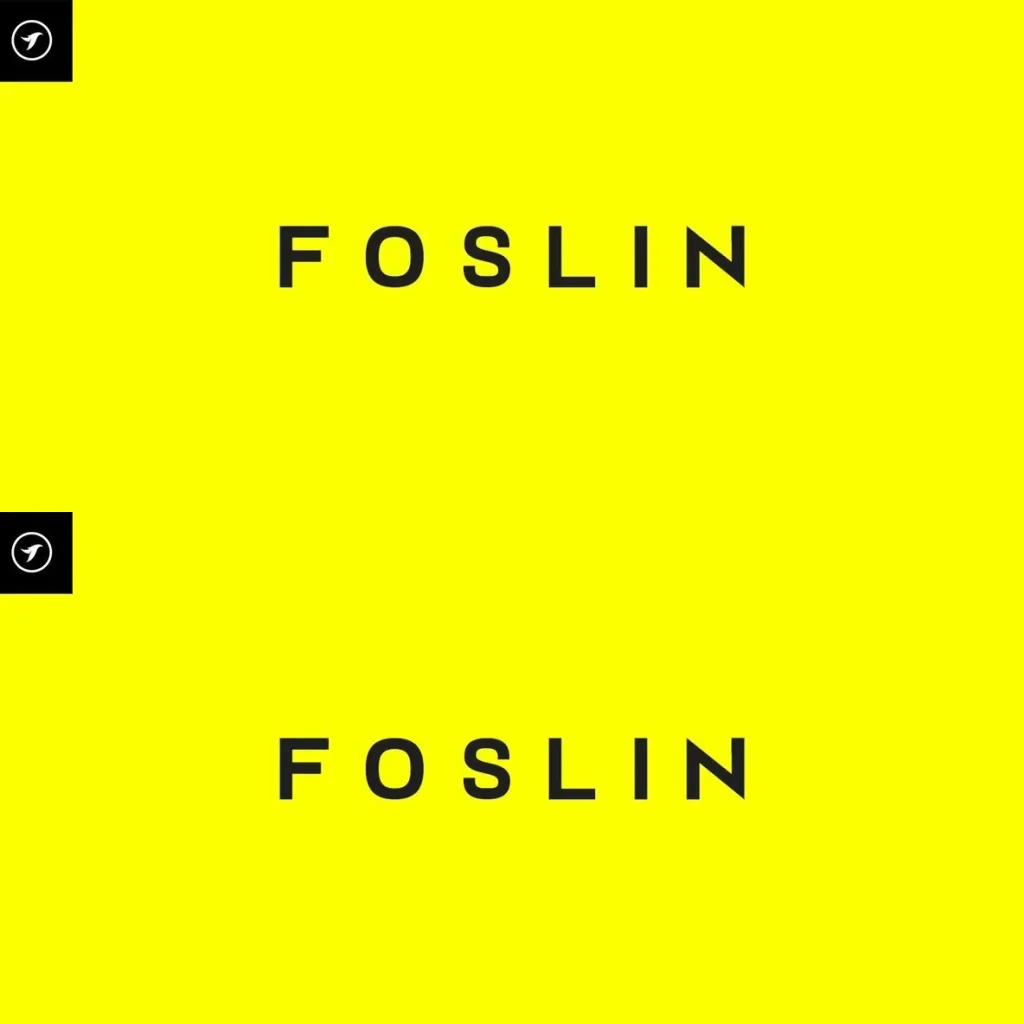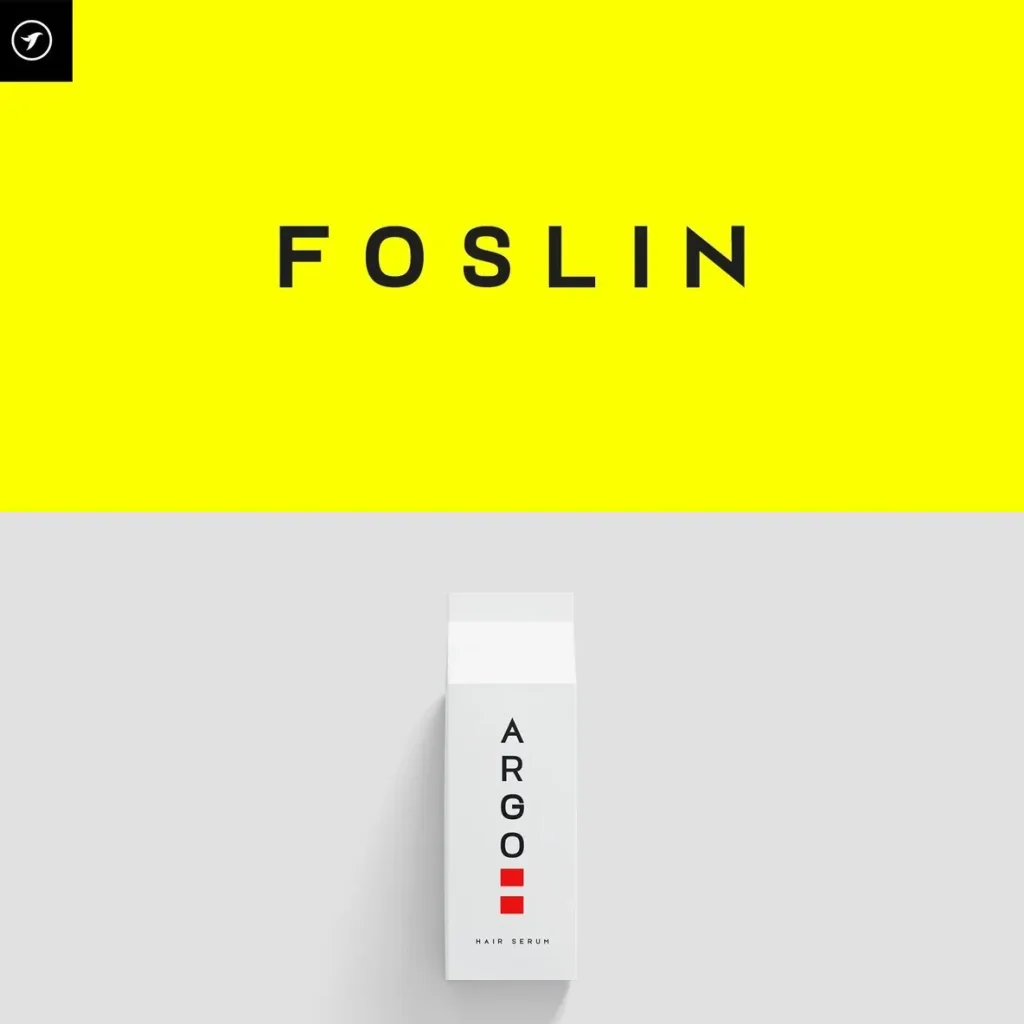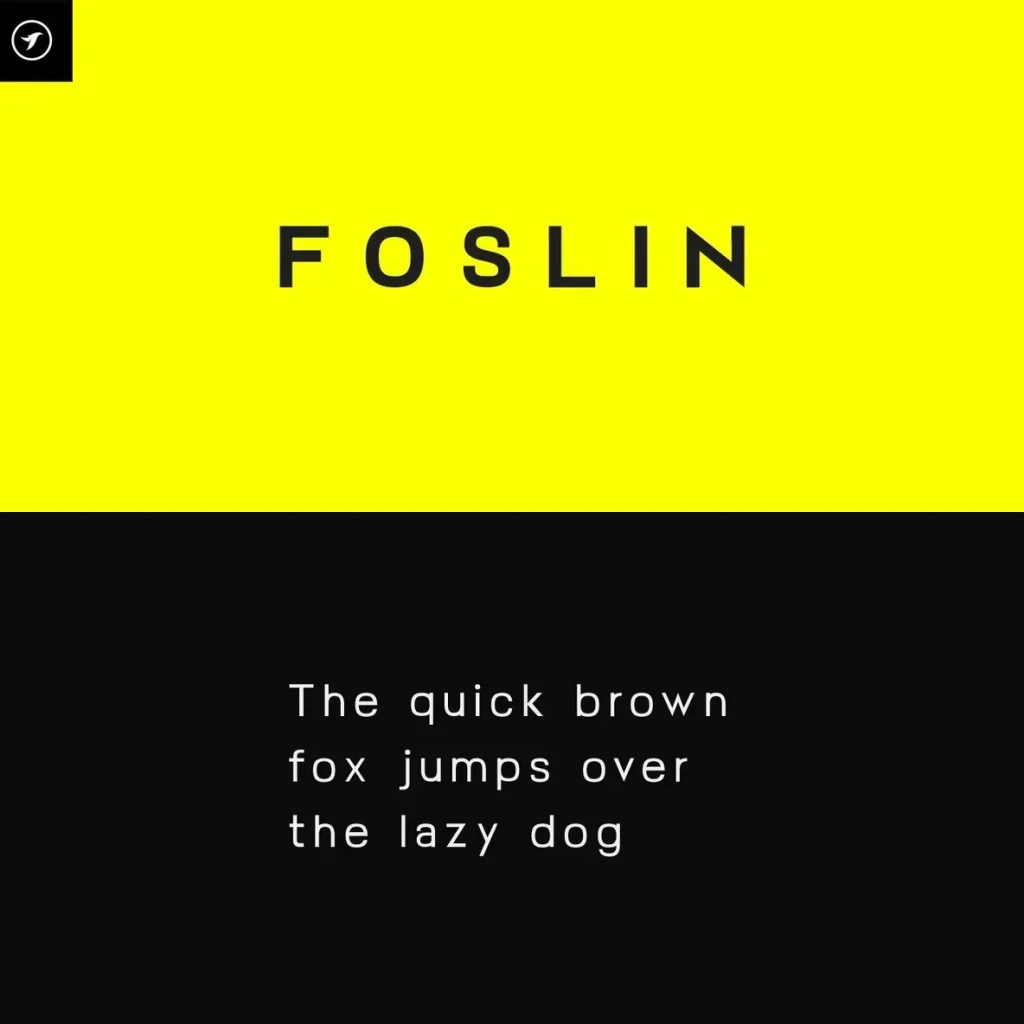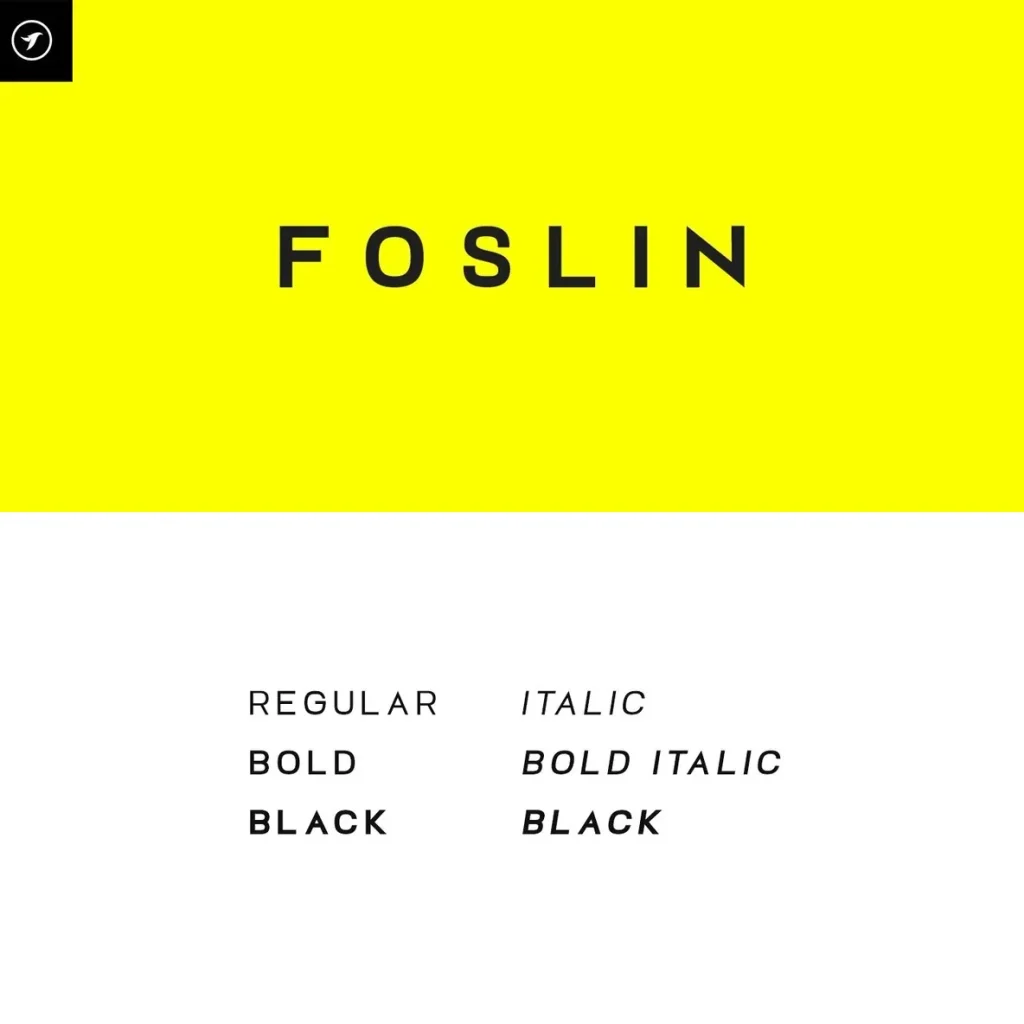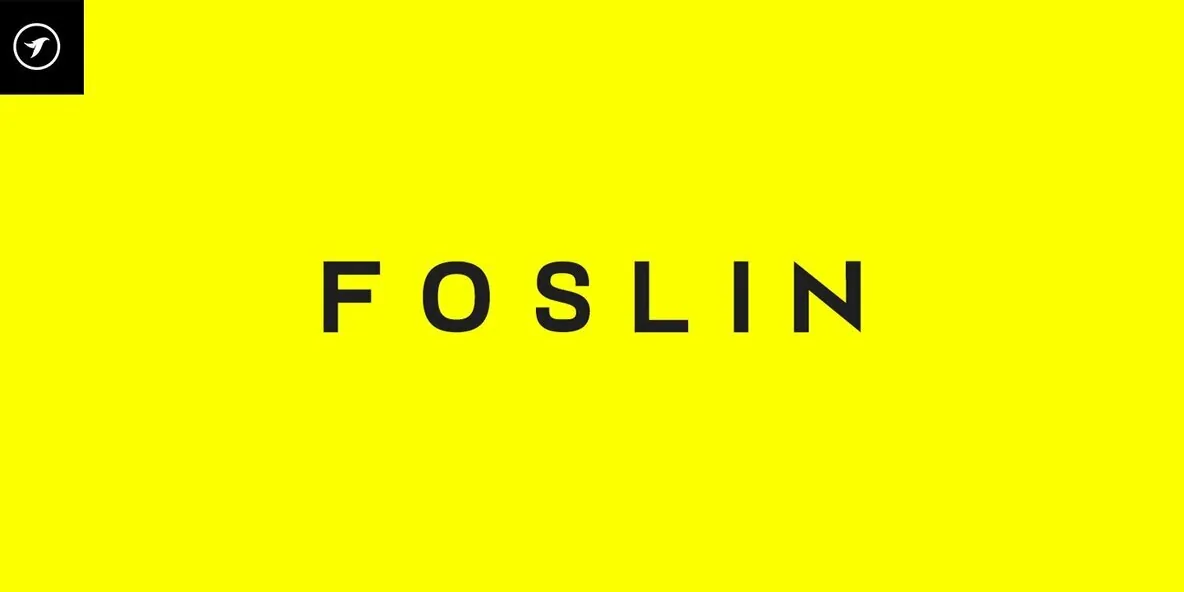
Foslin — Minimalism with Poise
Foslin is a minimal sans-serif typeface built around clean lines, refined proportions, and a modern, elegant appearance. Its simple construction gives the design a clear and composed voice, making it a strong choice for typography that needs to feel professional, stylish, and easy to read.
With its restrained form and contemporary character, Foslin supports a wide range of visual communication. It works well where clarity, balance, and a polished sans-serif presence are essential, from identity systems to digital and print layouts.
Perfect For
Branding
Editorial design
Websites
Packaging
Presentations
Contemporary visual communication